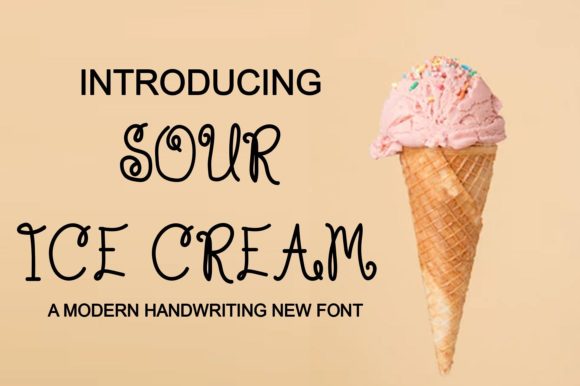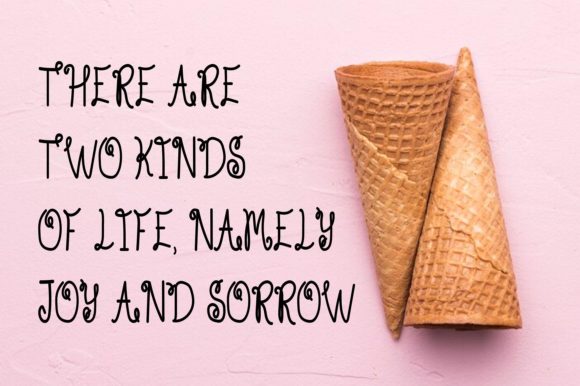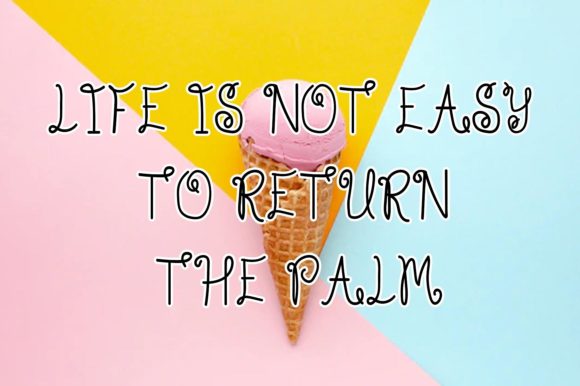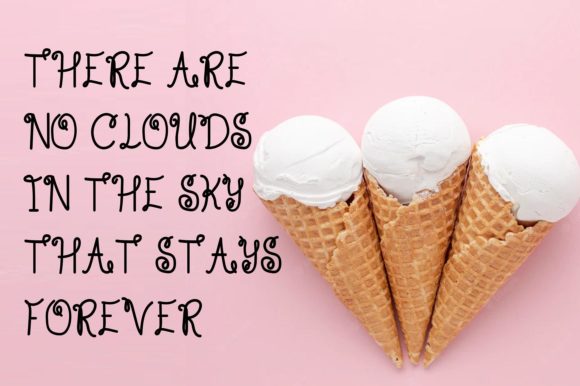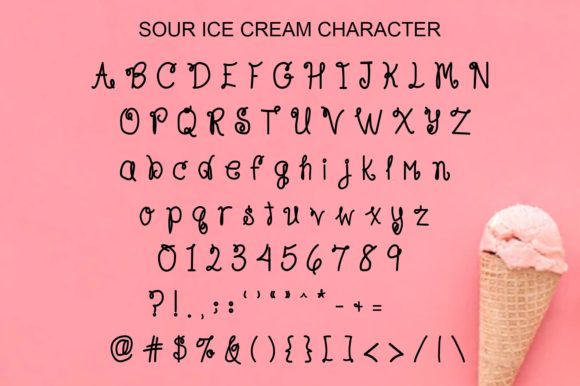
Sour Ice Cream Font
About Sour Ice Cream Font
The Sour Ice Cream Font is a delightful and whimsical handwritten typeface that adds a cute and charming touch to any design. Its unique style makes it stand out in various contexts, making it an excellent choice for a wide range of creative projects. Whether you’re searching for fonts to use on Instagram or calligraphy scripts for DIY endeavors, the Sour Ice Cream Font has the ability to transform any creative idea into a true piece of art.
The font’s cute and whimsical nature makes it a standout choice for projects that require a playful and lighthearted vibe. Its handwritten charm adds a personal touch to designs, creating an engaging and endearing visual experience.
Whether applied to social media graphics, DIY projects, or any other creative endeavor, the Sour Ice Cream Font brings a sense of uniqueness and creativity. Its versatile design ensures that it can adapt to various styles and themes, turning each project into a distinctive piece of art.
In summary, the Sour Ice Cream Font is more than just a typeface; it’s a cute and whimsical design tool that can enhance the charm of your creative projects. Whether used for Instagram posts or DIY endeavors, this font injects a playful and artistic flair, making it a delightful choice for those seeking a unique and engaging handwritten font.